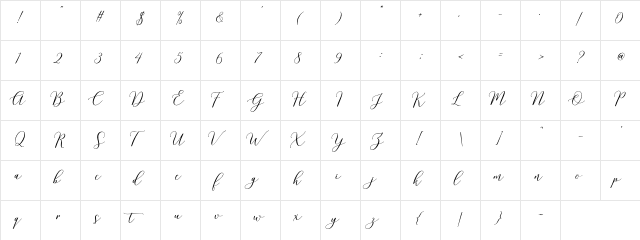
Honduras Script Demo Regular Font Preview
Honduras Script Demo Regular
| Foundry | Barland Design |
| Designer | Barland Design |
Design Context for Honduras Script Demo Typeface
Honduras Script Demo flows with the natural rhythm of handwritten lettering, making it ideal for designs that call for warmth and personal expression.
Font Pairing: Combine Honduras Script Demo with a simple geometric sans for maximum contrast — the tension between flowing curves and clean structure is a classic typographic pairing.
Pro Tip: Use Honduras Script Demo for short runs of text — names, titles, or taglines. Extended body copy in script faces tires the eye quickly.